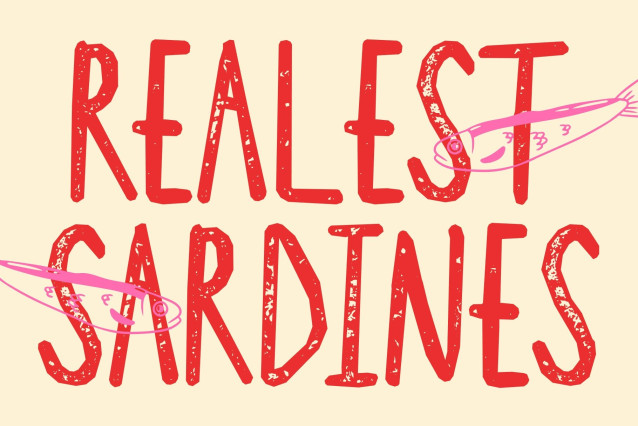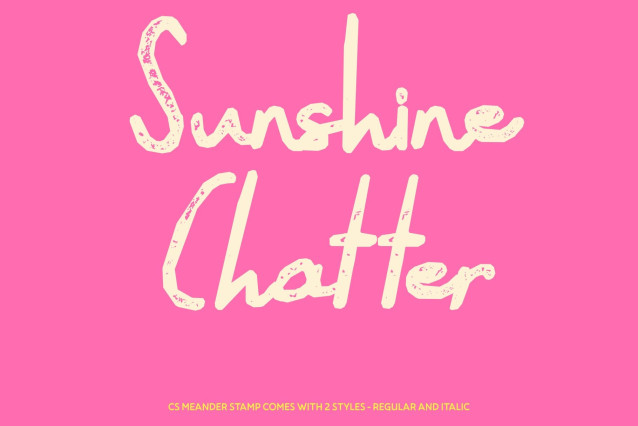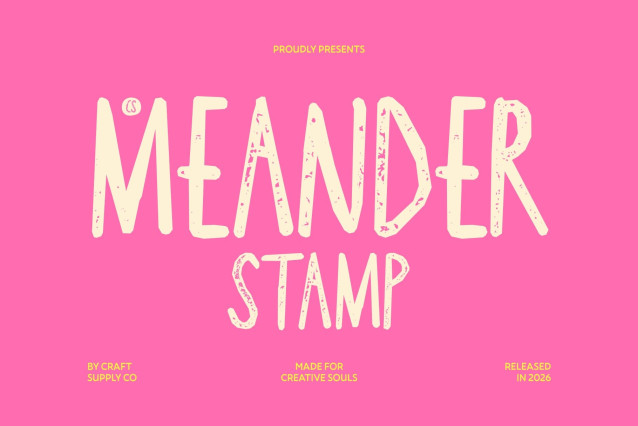
CS Meander Stamp Font
CS Meander Stamp – Relaxed Script with Handcrafted Warmth
Easygoing Handwritten Script with Friendly Personality
This is a relaxed script font that captures the warmth and simplicity of natural handwriting. Designed to feel effortless and approachable, it brings a calm, personal tone to any layout. The added stamp texture introduces a handcrafted finish that enhances its authenticity and gives every letter a tactile, organic character.
Simple Letterforms with Smooth Natural Flow
Built with clean strokes and balanced spacing, the letterforms flow gently from one character to the next, creating a soft rhythm that feels comfortable and readable. Its simplicity ensures flexibility across layouts, while the stamped texture adds subtle irregularities that keep the design lively and expressive.